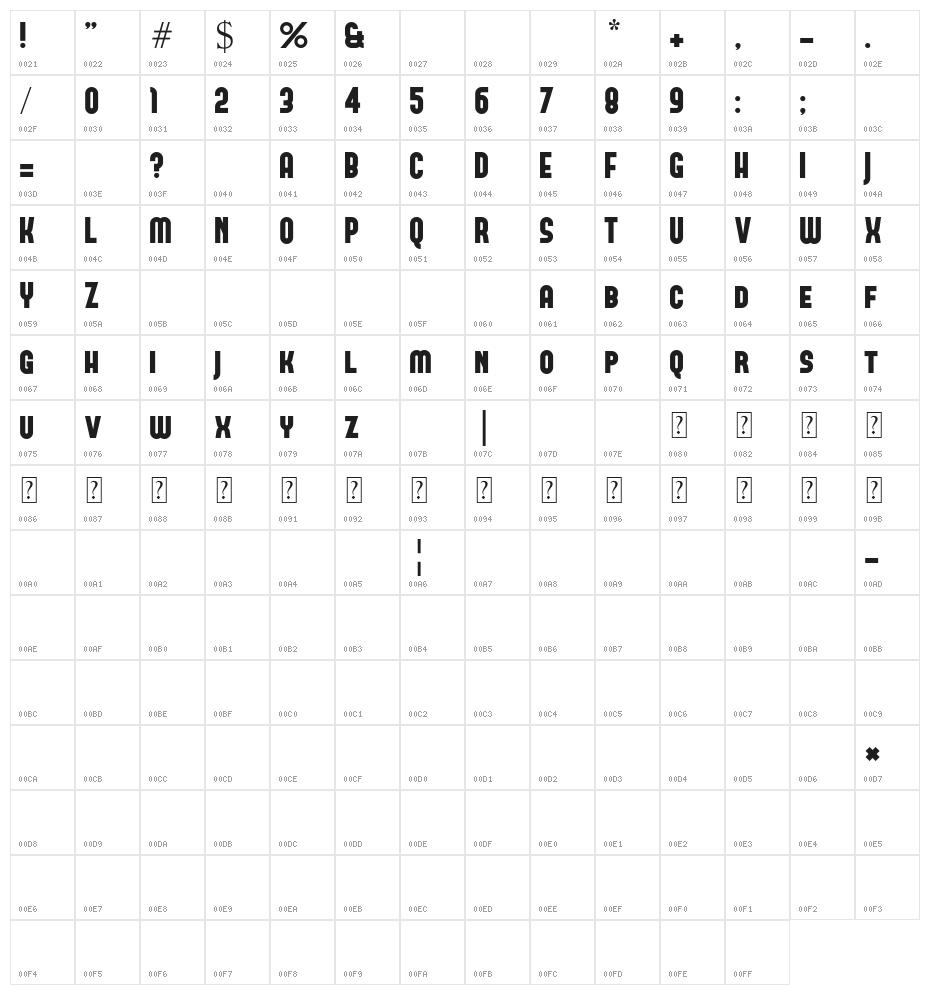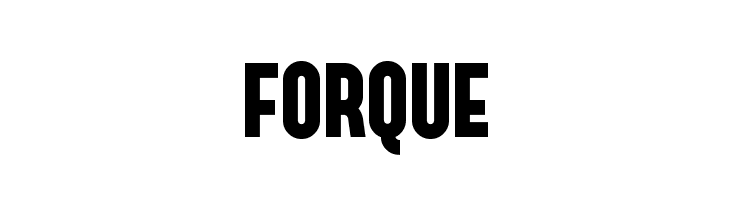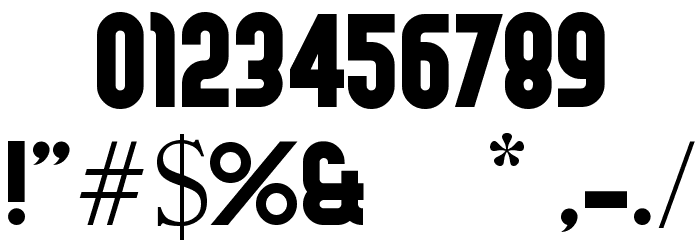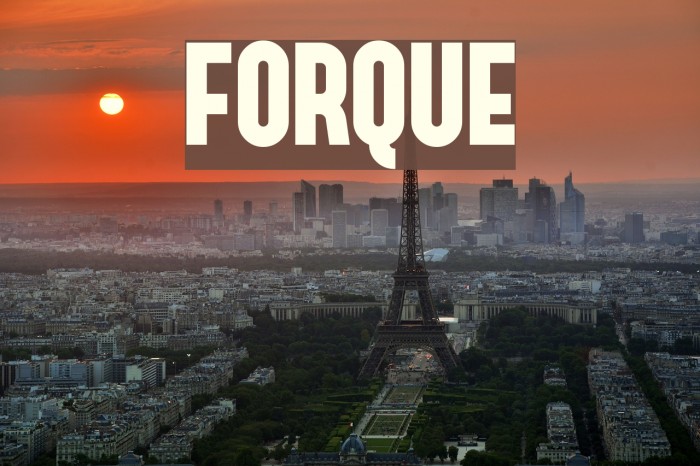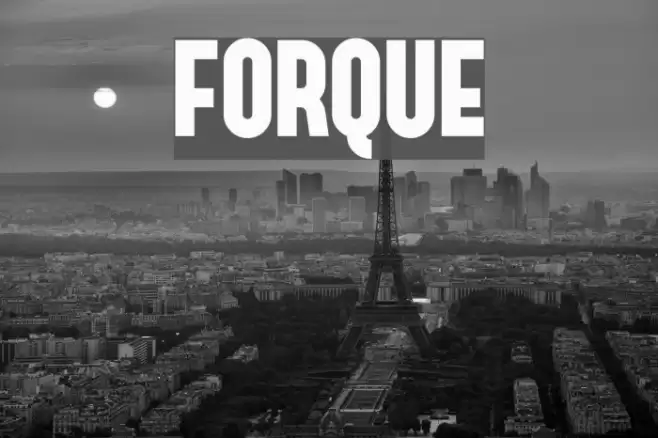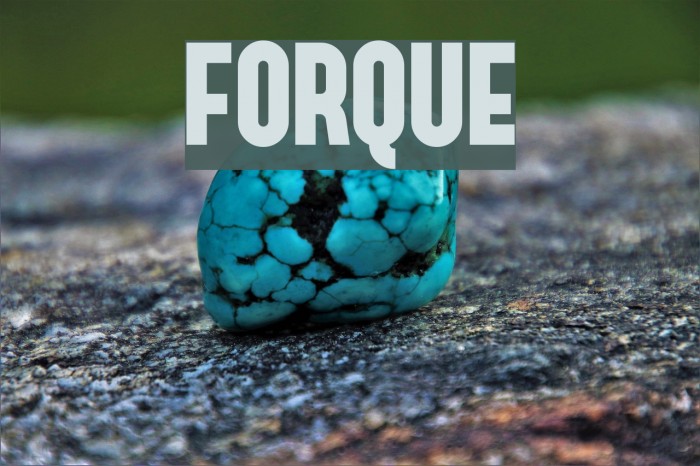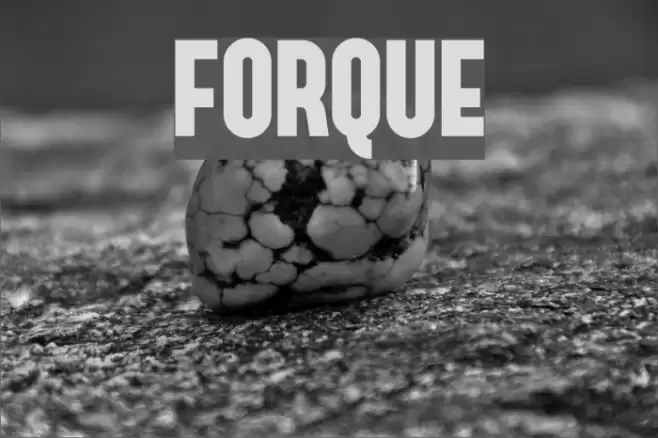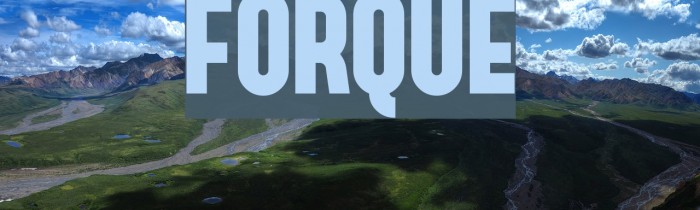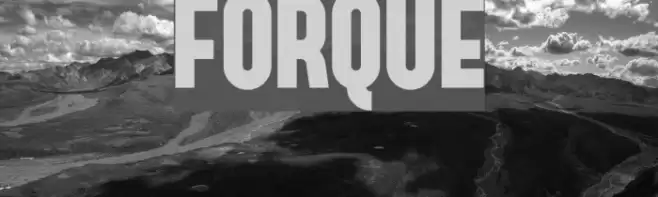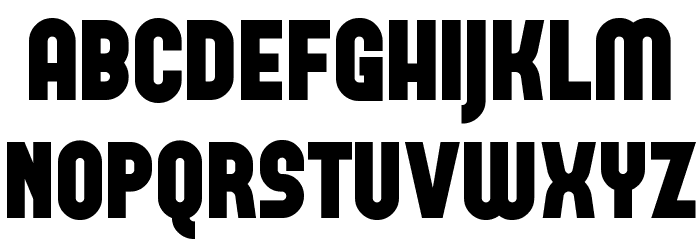
FORQUE Font
FORQUE Description
This bold and impactful typeface features a strong, geometric design with thick strokes and a commanding presence. The uppercase letters are uniform in height, creating a cohesive and structured appearance. The numbers and special characters maintain the same boldness, ensuring consistency across all elements. The font's style is reminiscent of vintage poster designs, making it ideal for projects that require a strong visual impact. Its bold weight and condensed width make it perfect for headlines and titles where space is limited but attention is needed.
| Proposed Projects | Perfect for posters, branding, advertising, and any project needing a strong visual impact. |